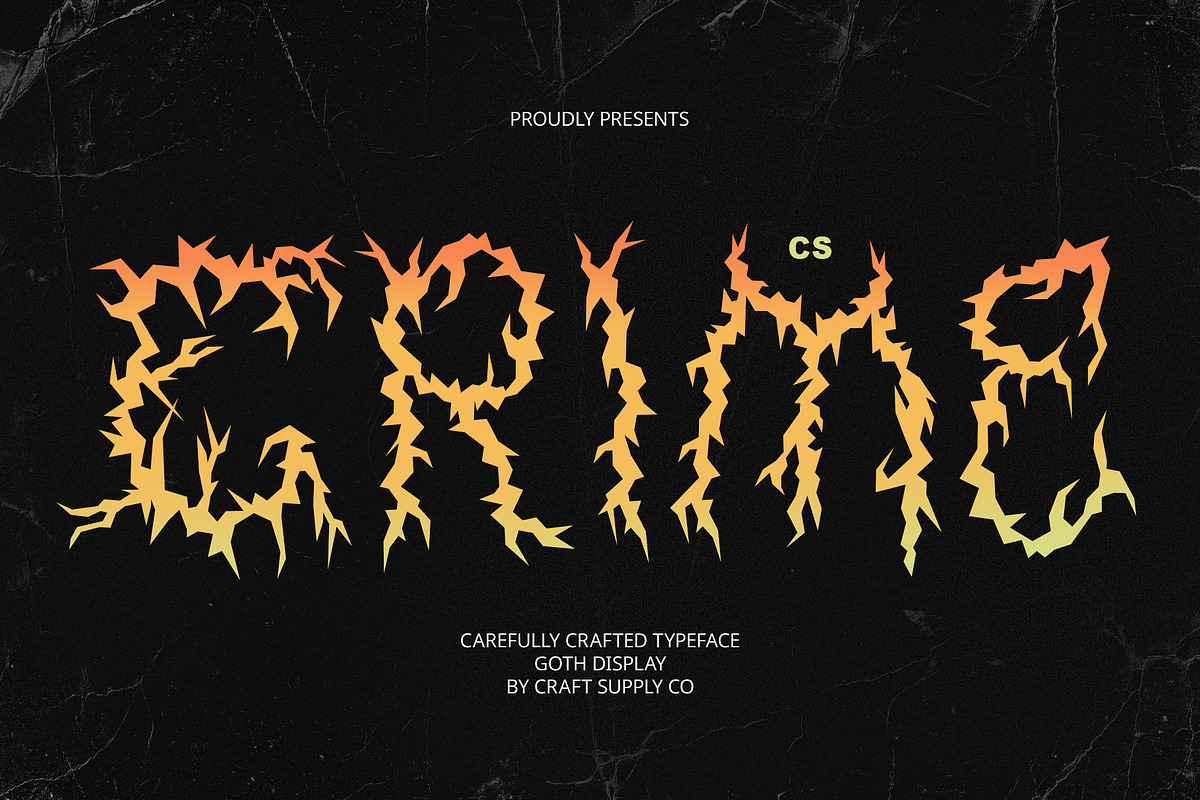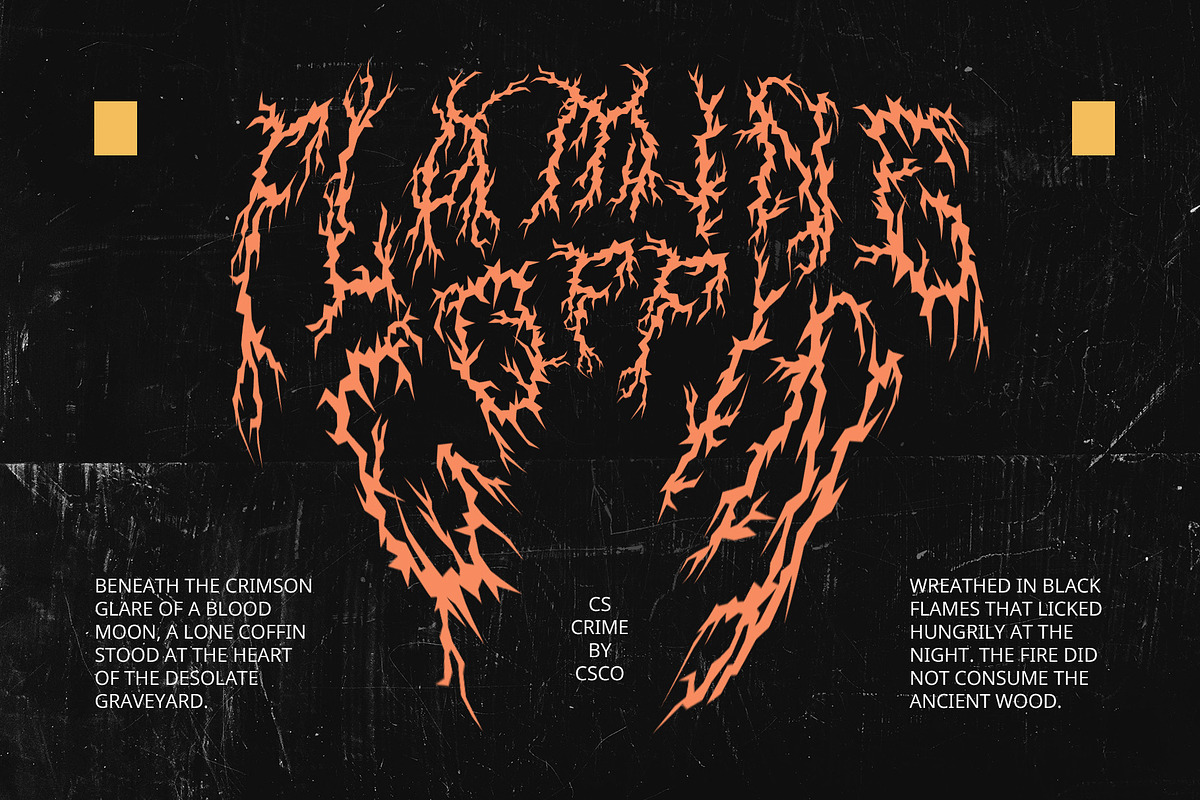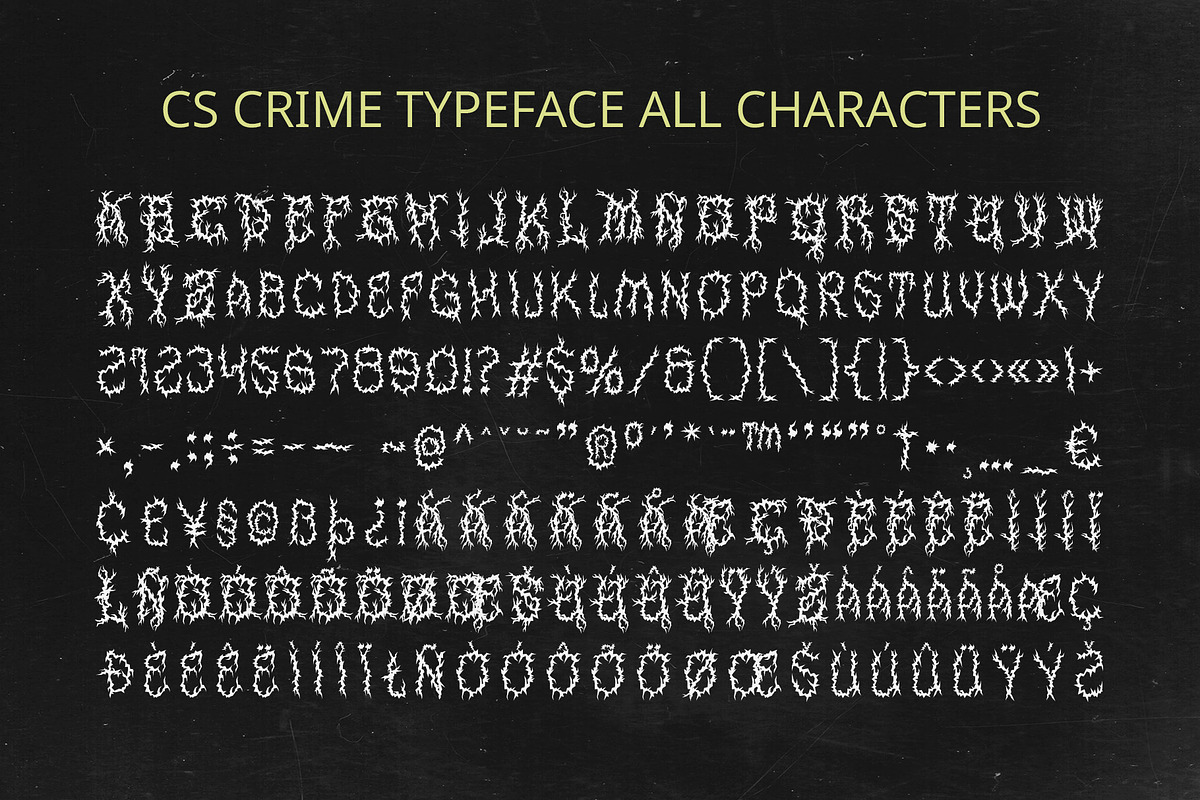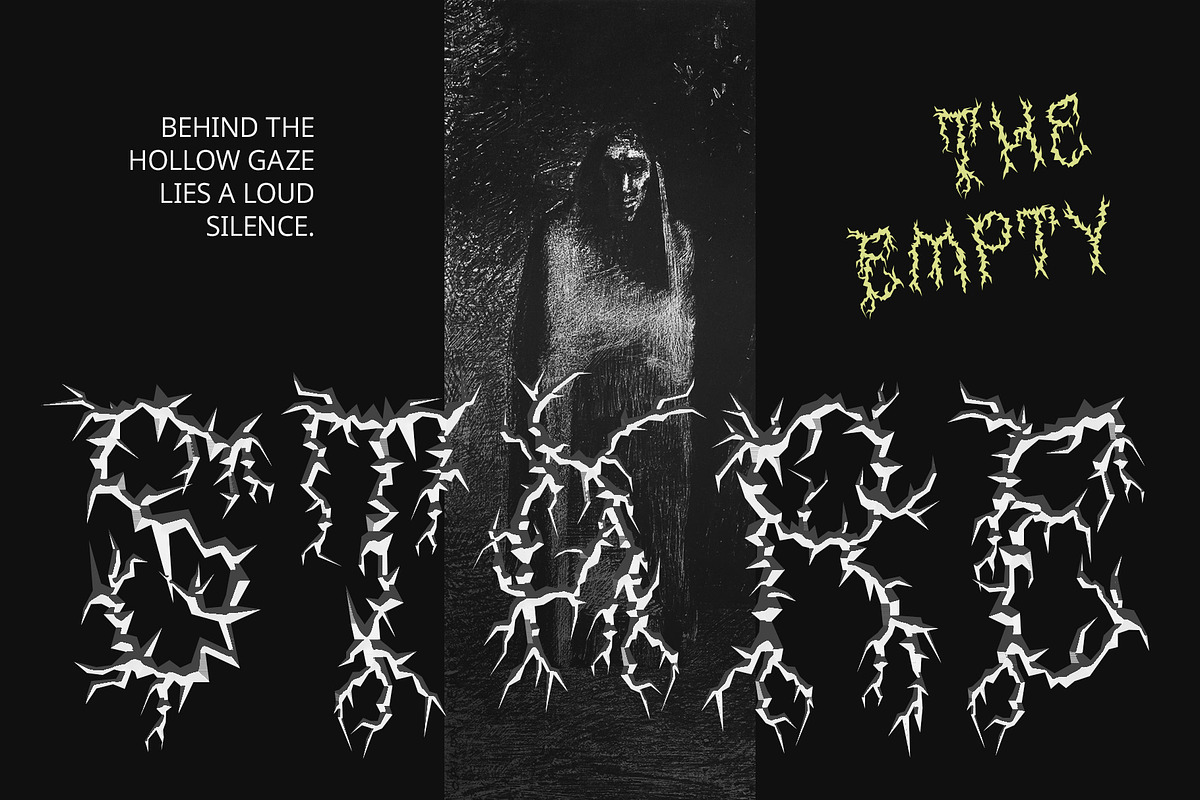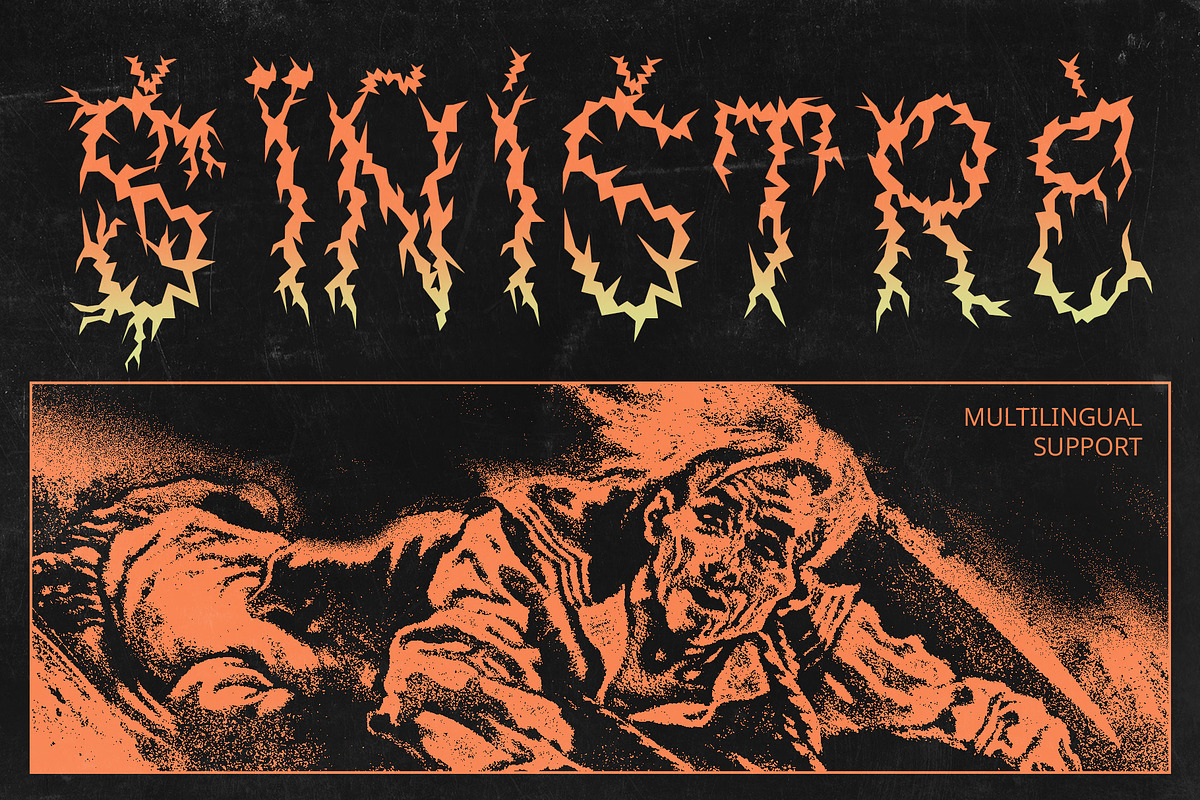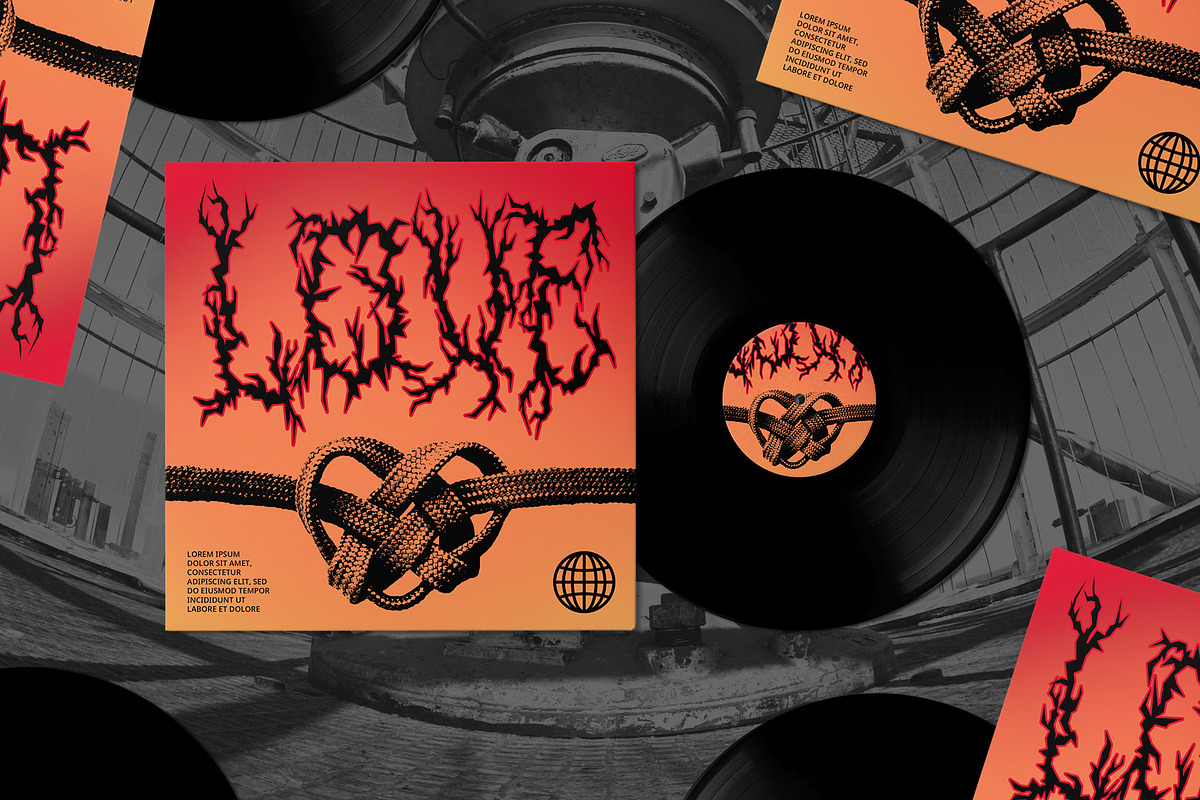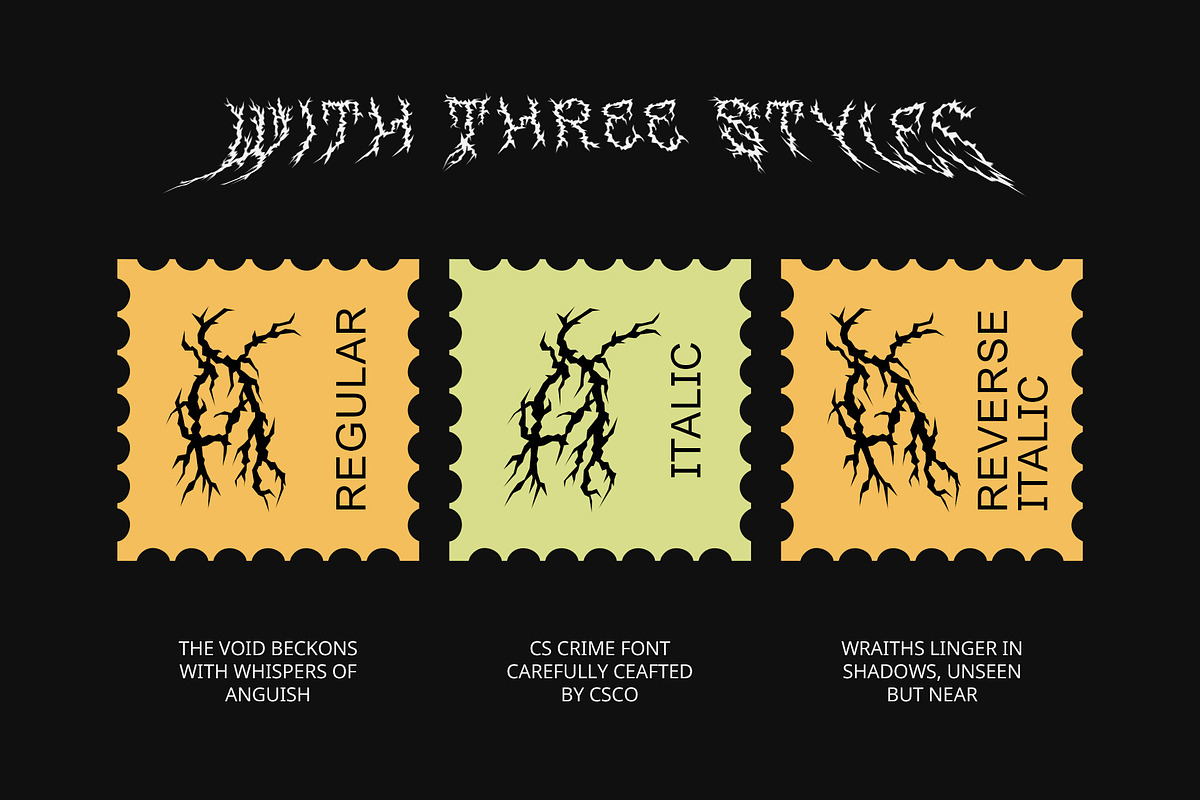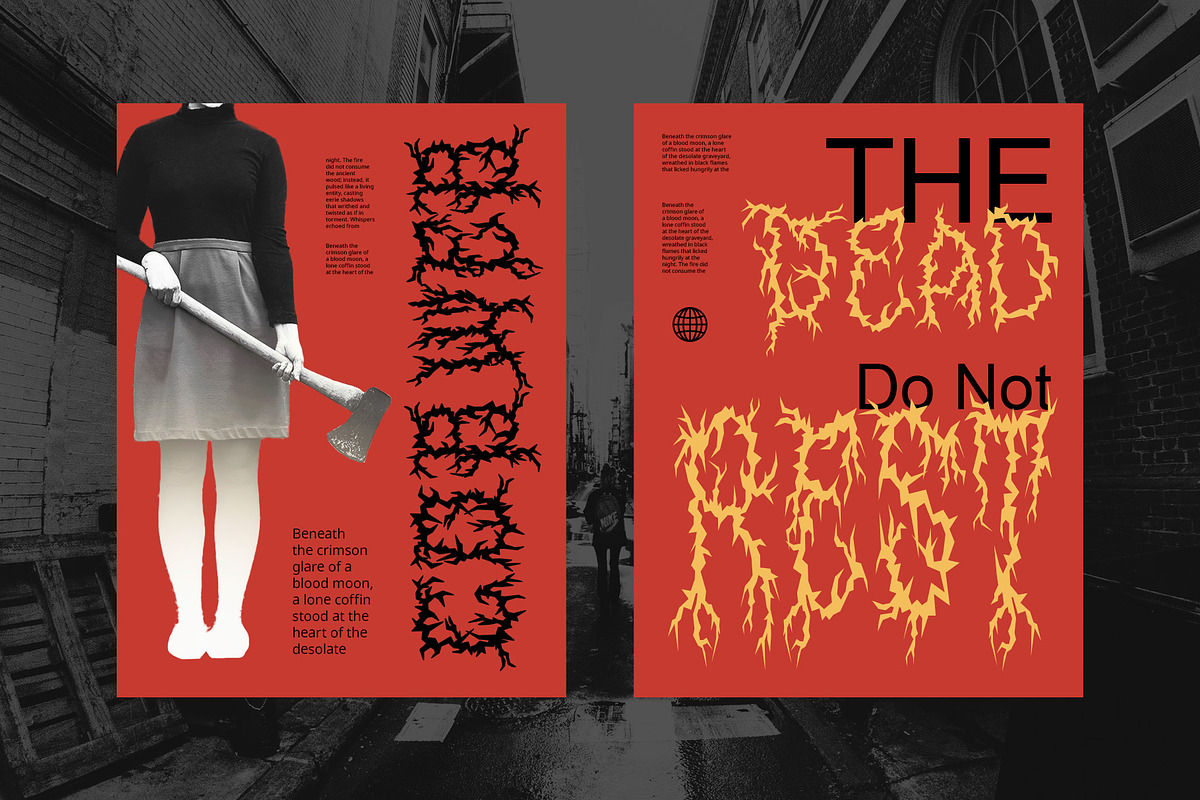
CS Crime – Black Metal Font
CS Crime – Black Metal Font: Where Gothic Meets Aggression
Display Font with Black Metal Aesthetic CS Crime – Black Metal Font is a bold and intricate display font, meticulously crafted to capture the raw, gothic energy of black metal culture. The letterforms feature sharp, decorative elements that resemble thorny branches or jagged patterns, creating a visually intense and rebellious style. This font is perfect for designs seeking to channel a dark, expressive, and mysterious vibe.
Intricate Design for Maximum Impact Every detail of CS Crime is designed to evoke a sense of drama and intensity. Its sharp, jagged lines mimic thorny textures, while the decorative flourishes add a touch of chaos and aggression. The font’s dark, gothic-inspired aesthetic makes it ideal for projects that need to convey power, defiance, and raw emotion.
Low Readability for Mysterious Appeal The deliberate complexity of CS Crime’s letterforms embraces low readability, enhancing its enigmatic and cryptic aura. This intentional obscurity draws the viewer in, making it an excellent choice for designs that aim to provoke curiosity and intrigue.
Perfect for Dark and Expressive Projects Whether you’re designing album covers, posters, or branding for metal bands, CS Crime delivers the ideal balance of gothic artistry and bold aggression. Its dramatic style captures the essence of the black metal aesthetic, ensuring your projects stand out with unparalleled intensity.
- CS Crime Regular
- CS Crime Italic
- CS Crime Reverse Italic